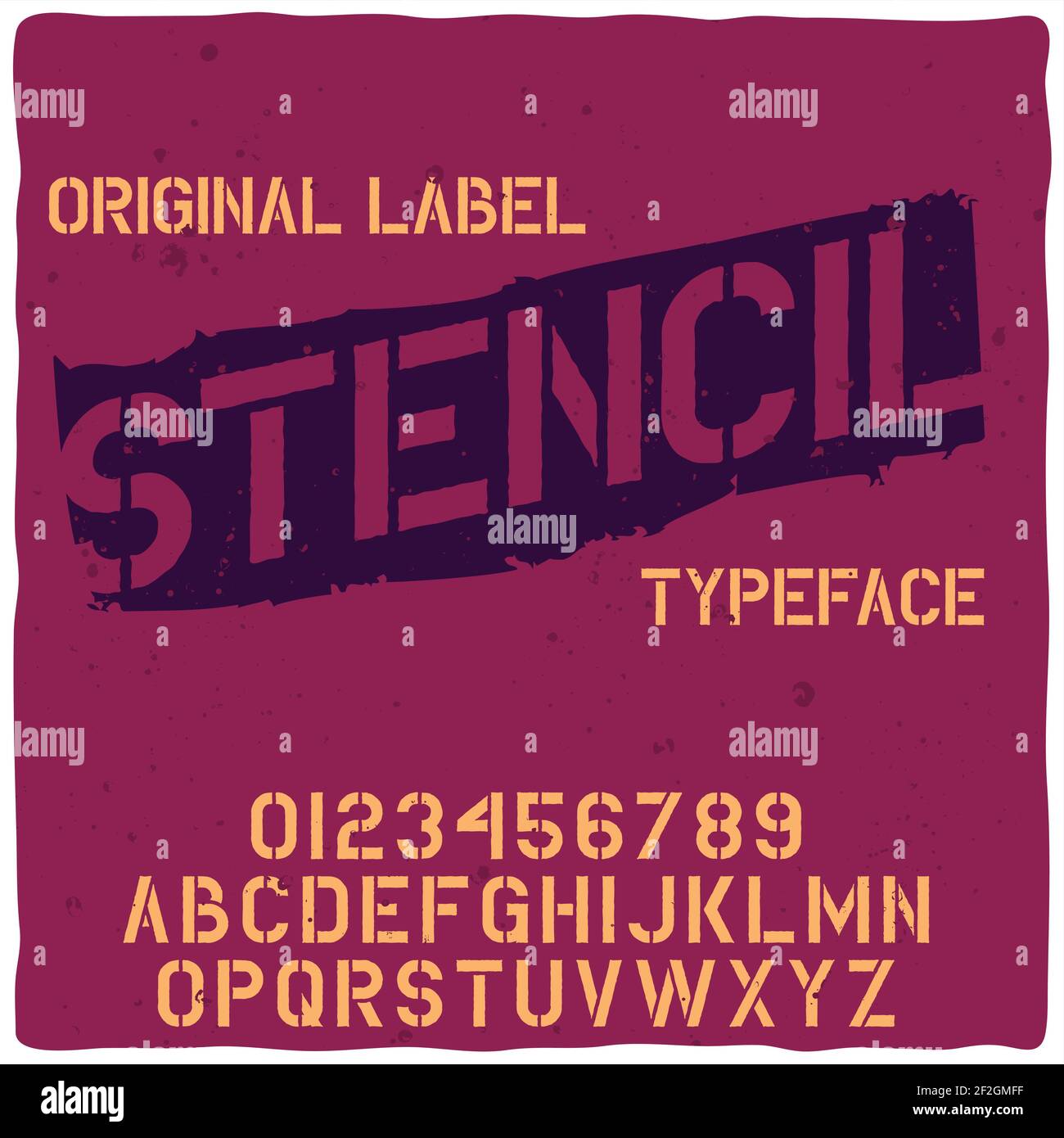
Fonts For Labels . The best label fonts are always reliant on whatever message and narrative a brand is about. In this blog post, we will share 8 of the best professional fonts that are perfect for modern logo designs. This guide will help you navigate the world of fonts, giving you the insights needed to make the right choice for your product. Think of them as the. Every font is free to download! Click to find the best 548 free fonts in the label style. Click to find the best 548 free fonts in the labels style. Their clean looks make it easy for viewers to decode a message, helping simplify the entire customer journey. The best fonts for labels. Every font is free to download! Ah, serif fonts, the classic choice! Generally, legible san serifs and expressive display fonts are staples when it comes to the font label category. Types of fonts suitable for labels.
The best label fonts are always reliant on whatever message and narrative a brand is about. Ah, serif fonts, the classic choice! Types of fonts suitable for labels. Generally, legible san serifs and expressive display fonts are staples when it comes to the font label category. In this blog post, we will share 8 of the best professional fonts that are perfect for modern logo designs. This guide will help you navigate the world of fonts, giving you the insights needed to make the right choice for your product. Click to find the best 548 free fonts in the label style. Their clean looks make it easy for viewers to decode a message, helping simplify the entire customer journey. Every font is free to download! Click to find the best 548 free fonts in the labels style.
Fonts For Labels Click to find the best 548 free fonts in the label style. This guide will help you navigate the world of fonts, giving you the insights needed to make the right choice for your product. The best fonts for labels. The best label fonts are always reliant on whatever message and narrative a brand is about. Every font is free to download! Click to find the best 548 free fonts in the label style. Think of them as the. Every font is free to download! Generally, legible san serifs and expressive display fonts are staples when it comes to the font label category. Ah, serif fonts, the classic choice! Click to find the best 548 free fonts in the labels style. In this blog post, we will share 8 of the best professional fonts that are perfect for modern logo designs. Their clean looks make it easy for viewers to decode a message, helping simplify the entire customer journey. Types of fonts suitable for labels.
21 Best Wine Inspired Fonts for Logos and Labels Creative Market Blog Fonts For Labels Every font is free to download! The best label fonts are always reliant on whatever message and narrative a brand is about. Click to find the best 548 free fonts in the labels style. Types of fonts suitable for labels. Click to find the best 548 free fonts in the label style. Think of them as the. Their clean looks. Fonts For Labels.
15 Best Fonts for Labels Fonts For Labels This guide will help you navigate the world of fonts, giving you the insights needed to make the right choice for your product. Every font is free to download! The best fonts for labels. In this blog post, we will share 8 of the best professional fonts that are perfect for modern logo designs.. Fonts For Labels.
33 Label Fonts Labels Design Ideas 2020 Fonts For Labels Their clean looks make it easy for viewers to decode a message, helping simplify the entire customer journey. Ah, serif fonts, the classic choice! Every font is free to download! Think of them as the. The best label fonts are always reliant on whatever message and narrative a brand is about. The best fonts for labels. Click to find the. Fonts For Labels.
10 Fonts to use for Labels Fonts For Labels Every font is free to download! The best label fonts are always reliant on whatever message and narrative a brand is about. Click to find the best 548 free fonts in the label style. Every font is free to download! This guide will help you navigate the world of fonts, giving you the insights needed to make the right choice. Fonts For Labels.
20+ Best Label Fonts for Stunning Packaging in 2023 Fonts For Labels Ah, serif fonts, the classic choice! Click to find the best 548 free fonts in the label style. Every font is free to download! Types of fonts suitable for labels. Click to find the best 548 free fonts in the labels style. Generally, legible san serifs and expressive display fonts are staples when it comes to the font label category.. Fonts For Labels.
Choosing the Perfect Font For Your Label Design Fonts For Labels This guide will help you navigate the world of fonts, giving you the insights needed to make the right choice for your product. The best fonts for labels. Ah, serif fonts, the classic choice! Types of fonts suitable for labels. Click to find the best 548 free fonts in the label style. The best label fonts are always reliant on. Fonts For Labels.
40+ Best Label Fonts for Stunning Packaging in 2024 Fonts For Labels This guide will help you navigate the world of fonts, giving you the insights needed to make the right choice for your product. Click to find the best 548 free fonts in the labels style. Every font is free to download! The best fonts for labels. Every font is free to download! Generally, legible san serifs and expressive display fonts. Fonts For Labels.
The 37 Best Fonts for Labels Designers Can Use Fonts For Labels Click to find the best 548 free fonts in the labels style. Their clean looks make it easy for viewers to decode a message, helping simplify the entire customer journey. Click to find the best 548 free fonts in the label style. Ah, serif fonts, the classic choice! Generally, legible san serifs and expressive display fonts are staples when it. Fonts For Labels.